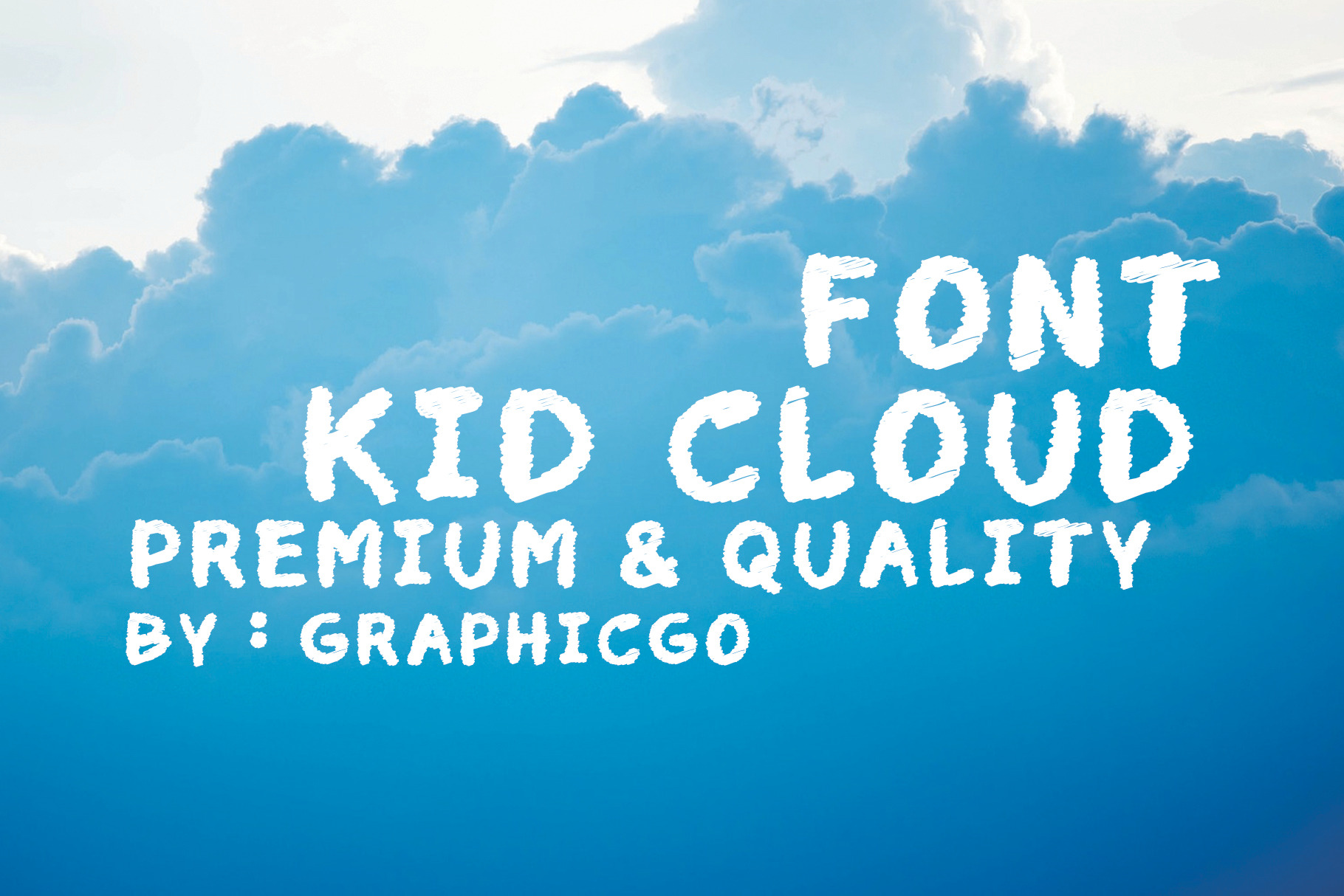
Kid Cloud Font
Kid Cloud Font is cloud and bubble looking style. It 's perfect for kid related products, cards, posters, wall art, branding, diy projects, greeting cards, labels, quotes, packaging, websites and much more.